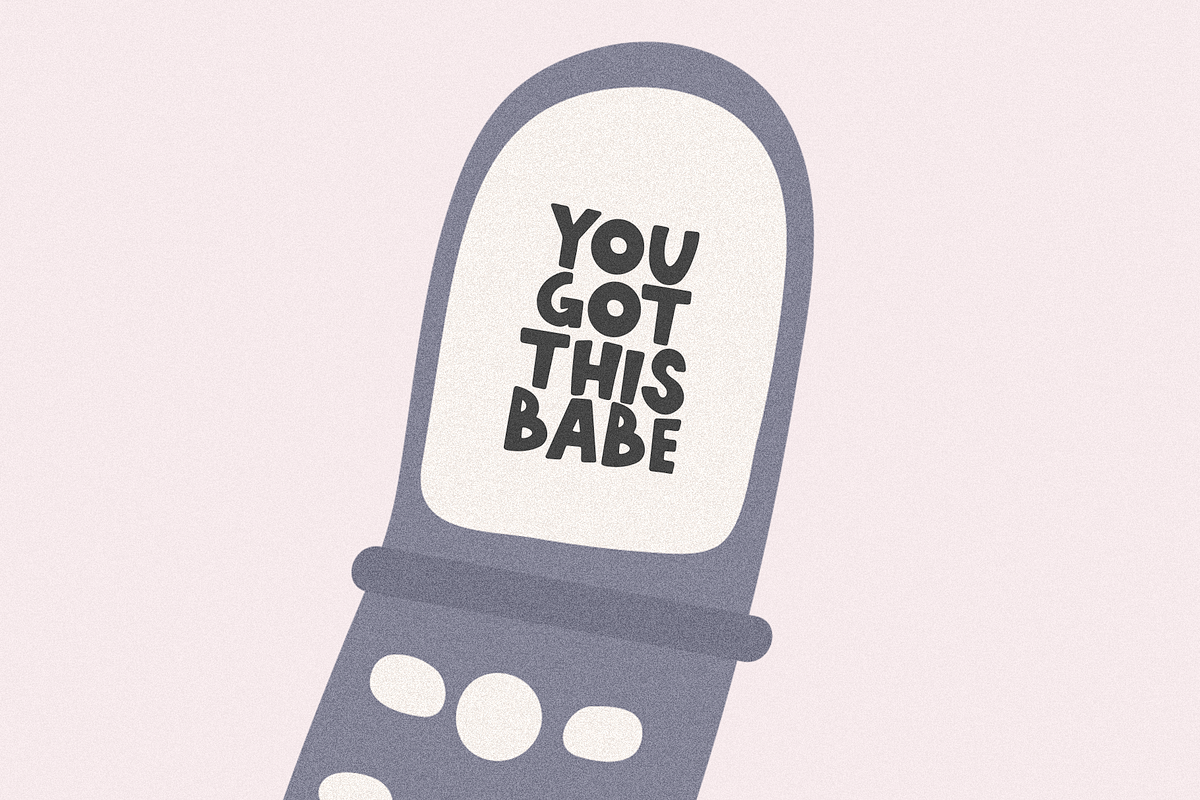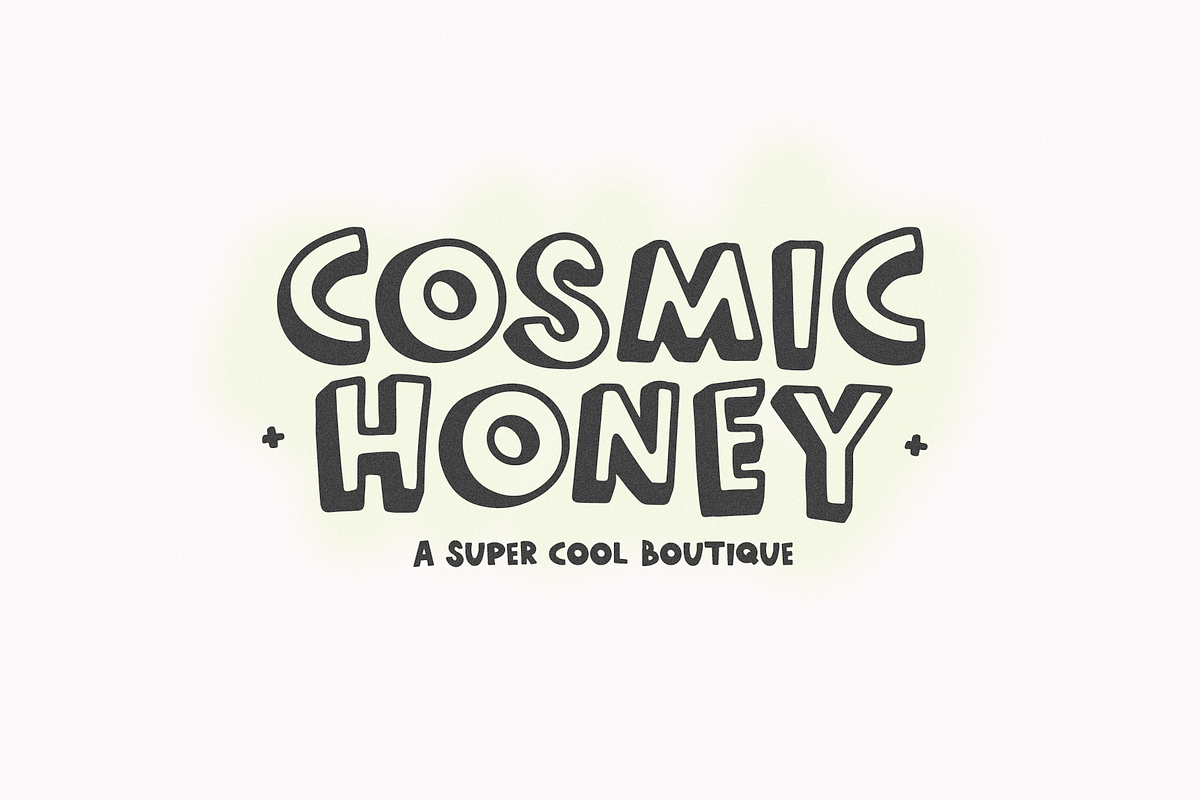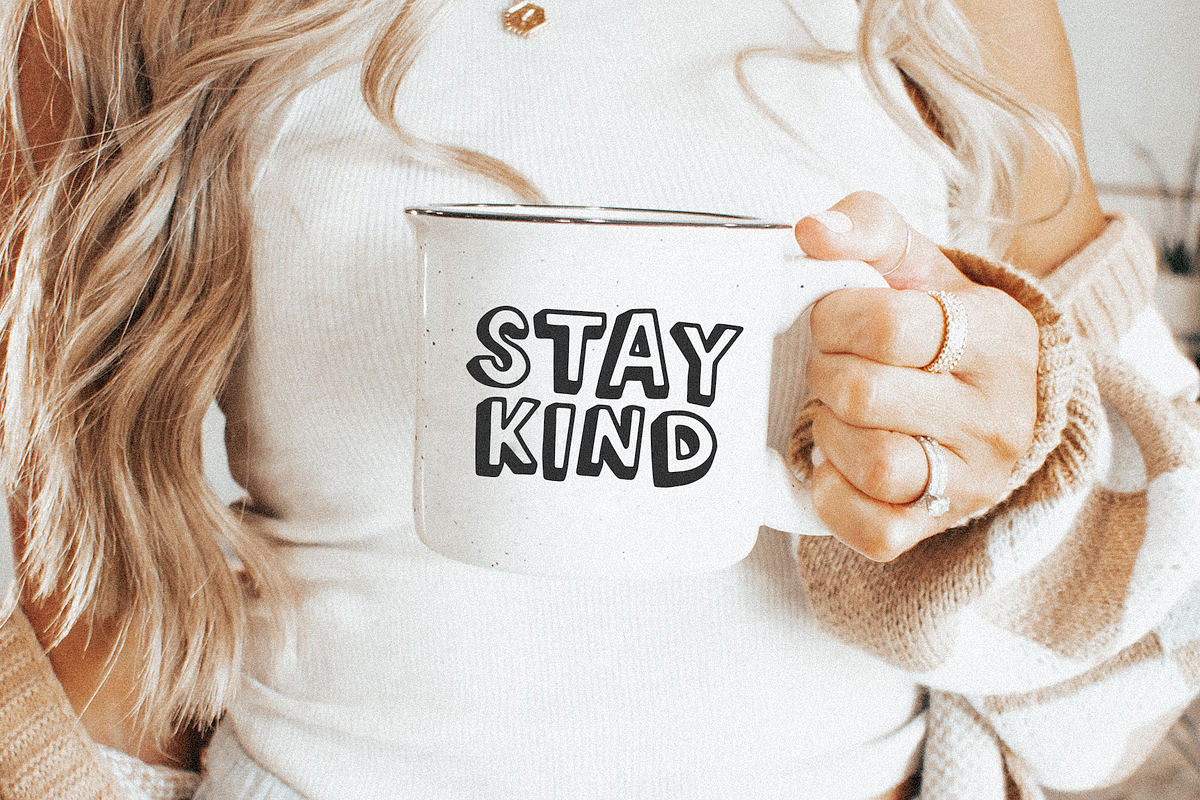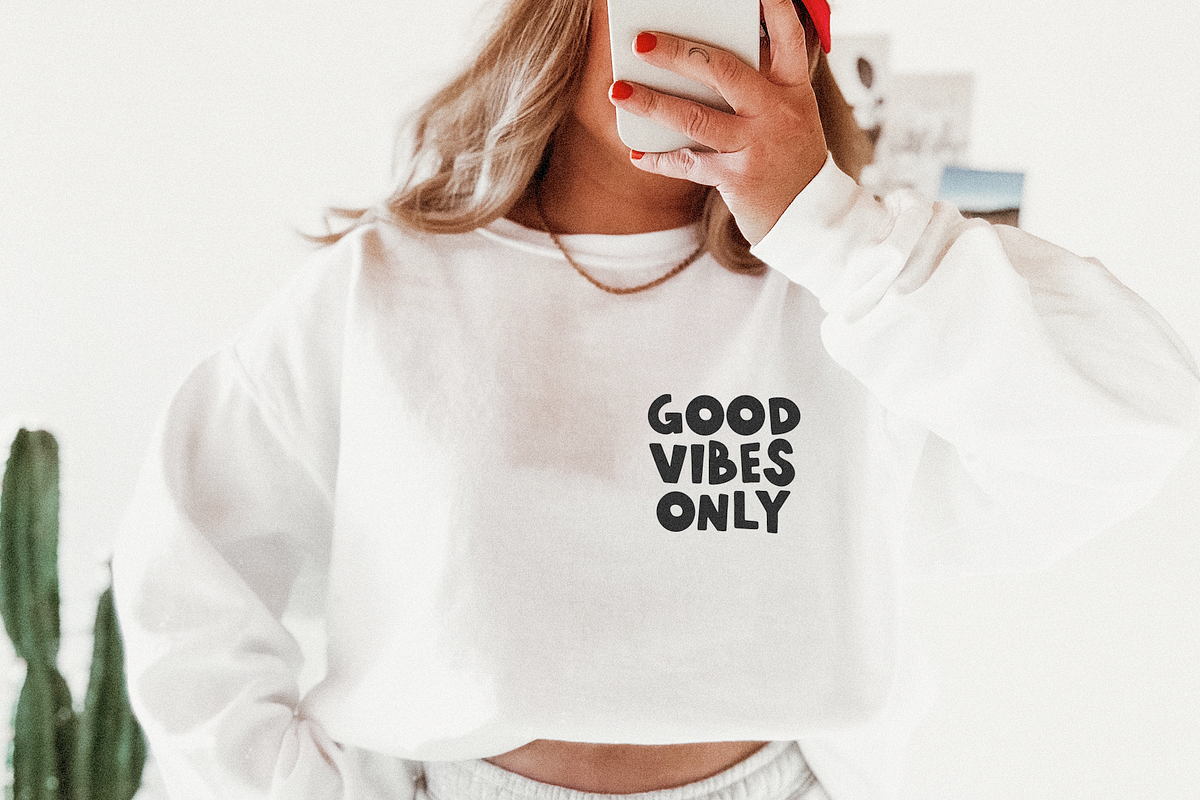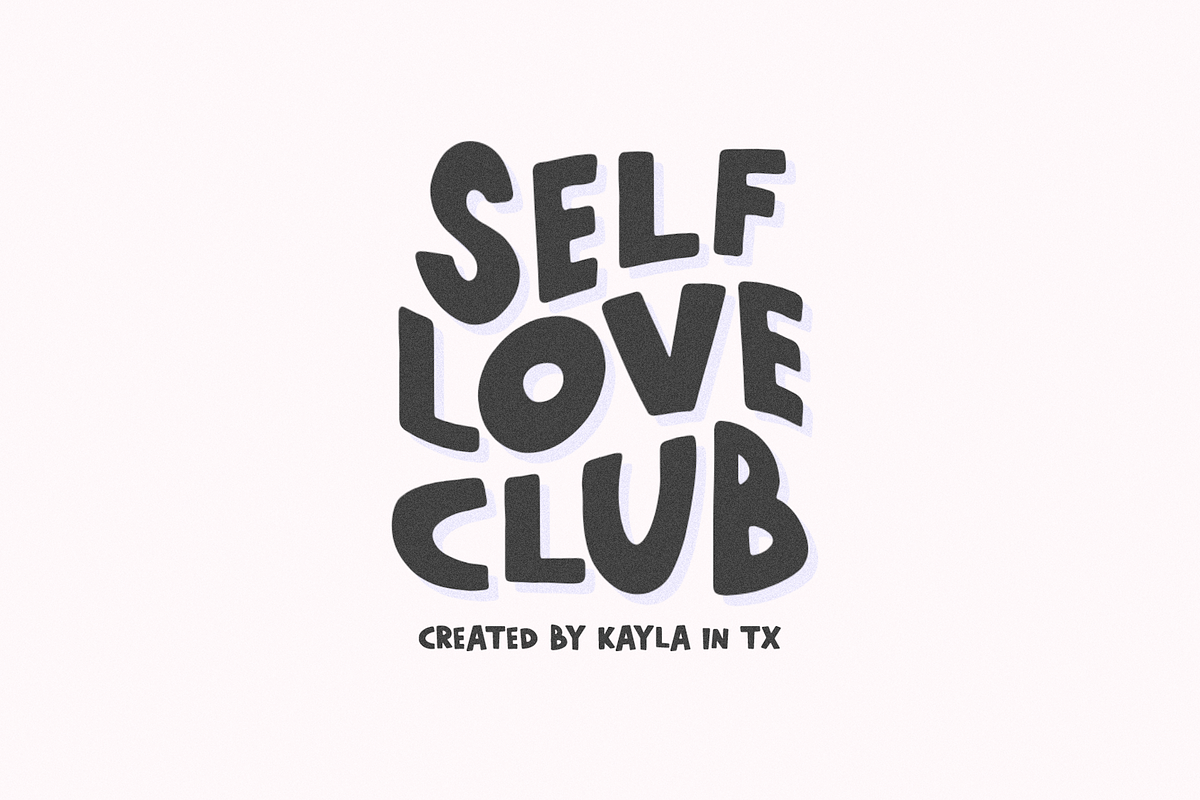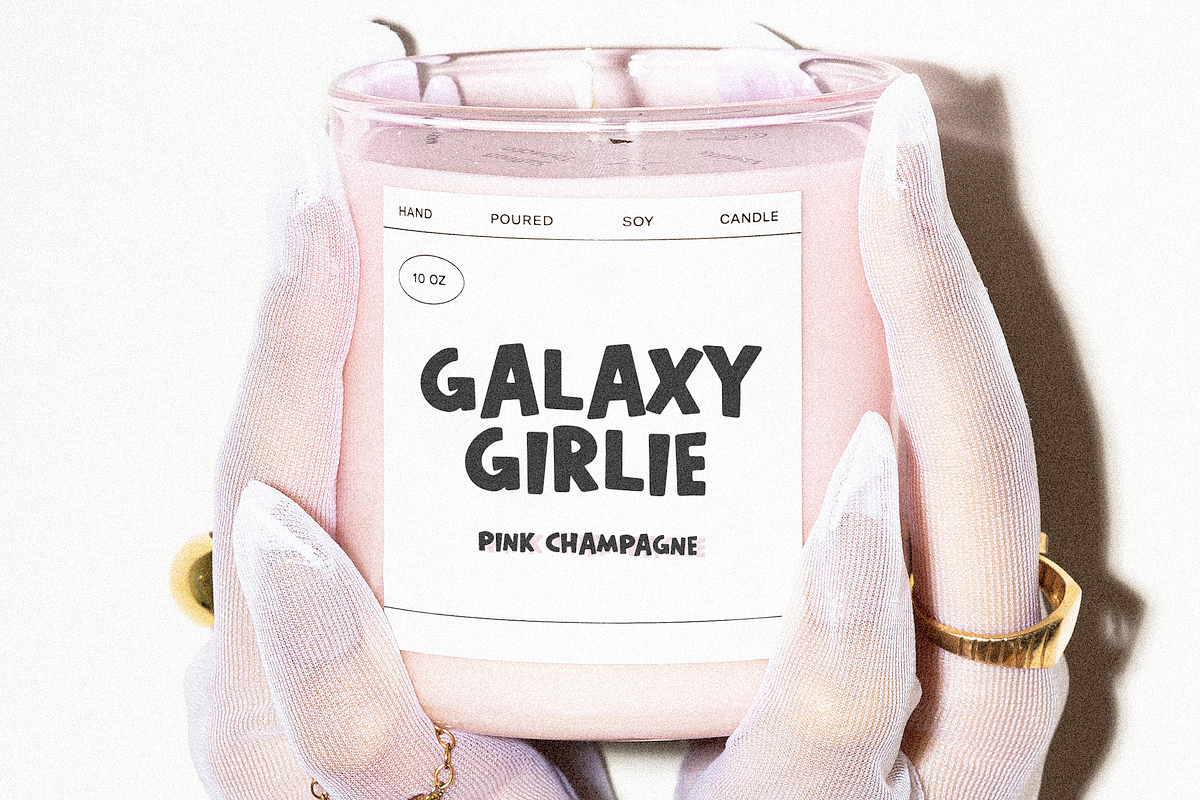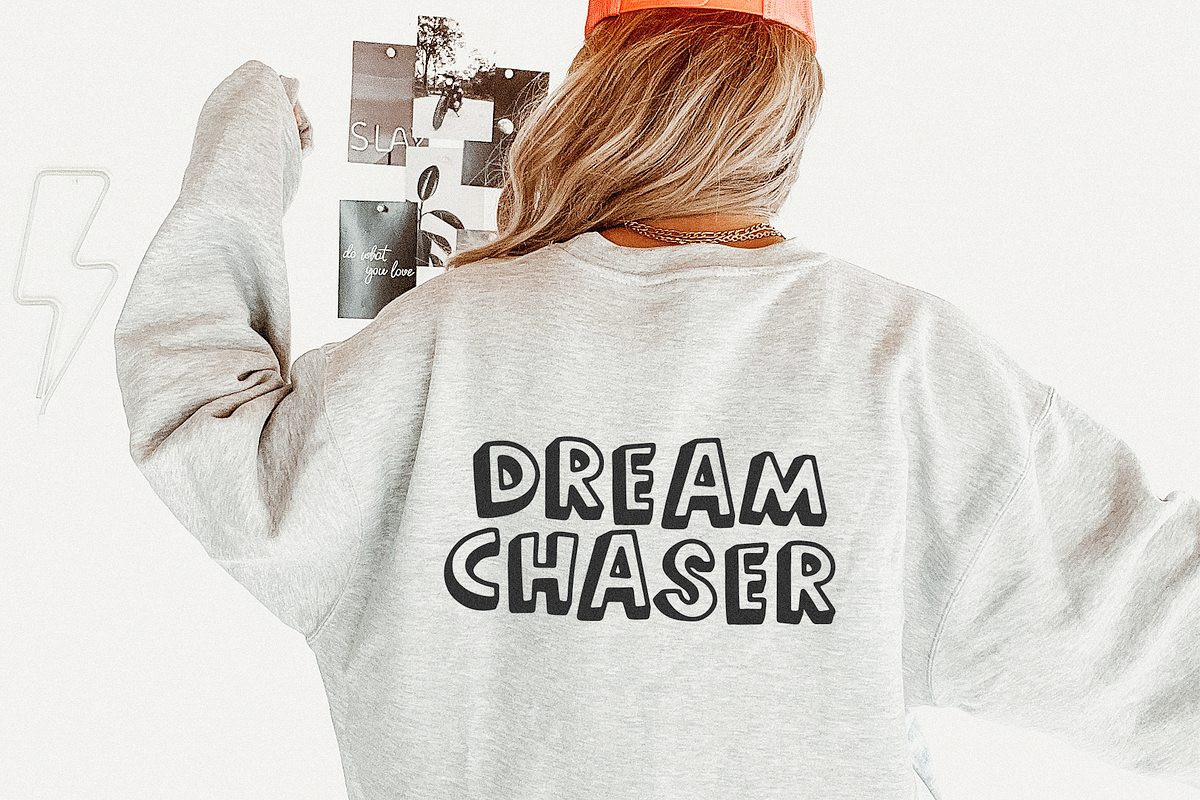
World Traveler | Handwritten Font
World Traveler is a handwritten font with big, quirky letters. It is an ALL CAPS font.
Lowercase Letters are solid and capital letters are open/3d.
This font is perfect for quotes, headings, blogs, logos, invitations and more!